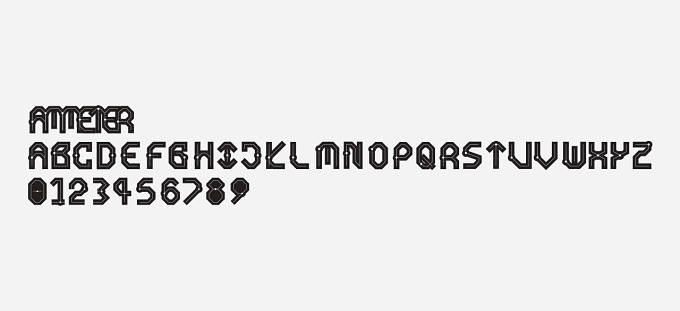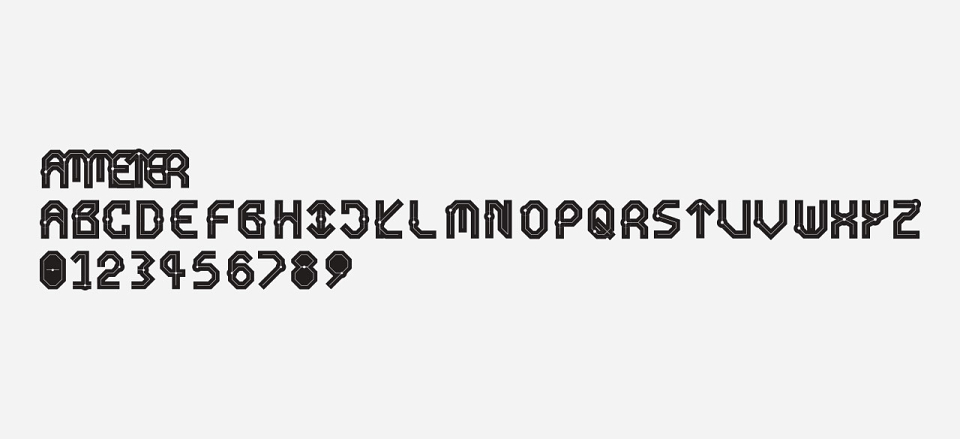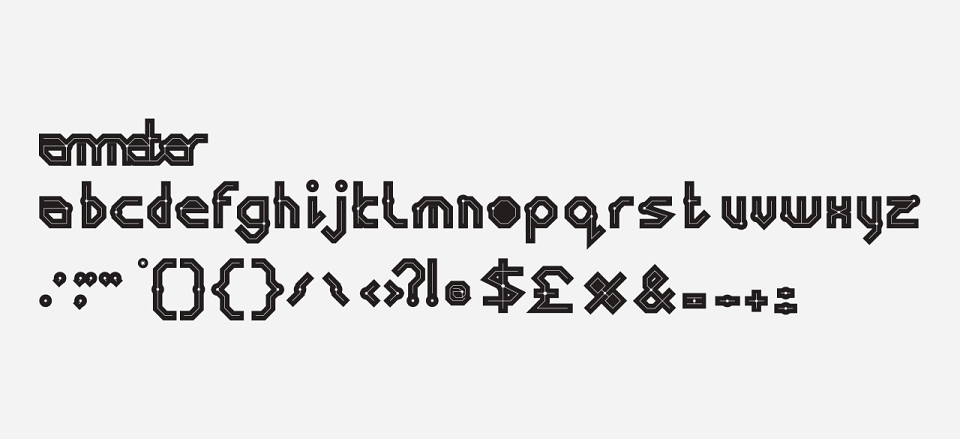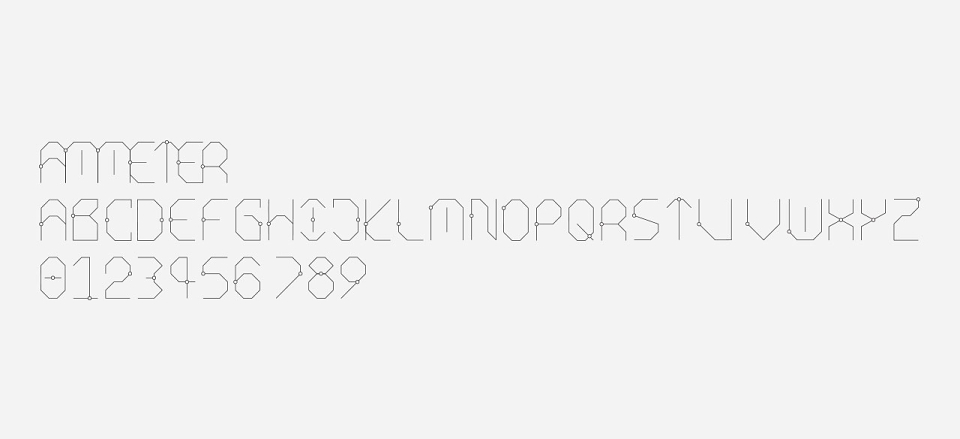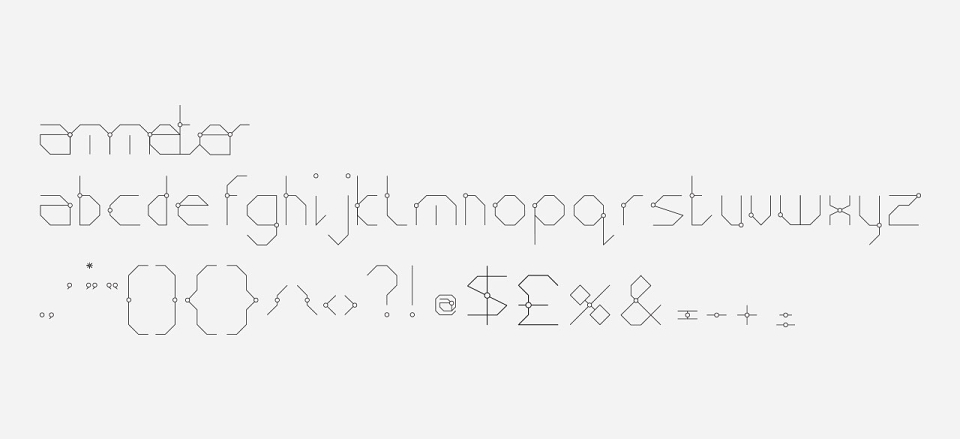
A scientific typeface based around electrical circuits and current. Design cues were taken from looking closely at various circuit diagrams to give a consistency and flow to the characters. The idea was to create a character set that would feel like a closed circuit when letters, words and paragraphs are linked together or standing on their own.
Ammeter Typeface